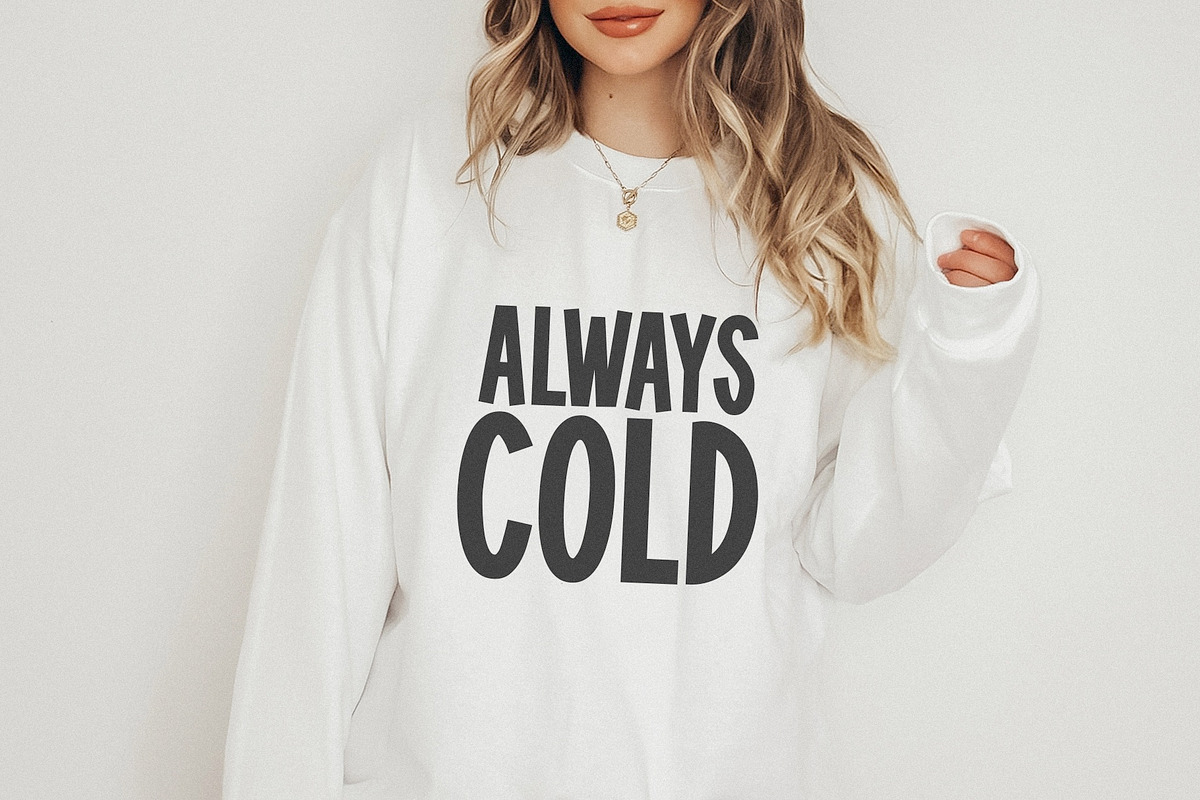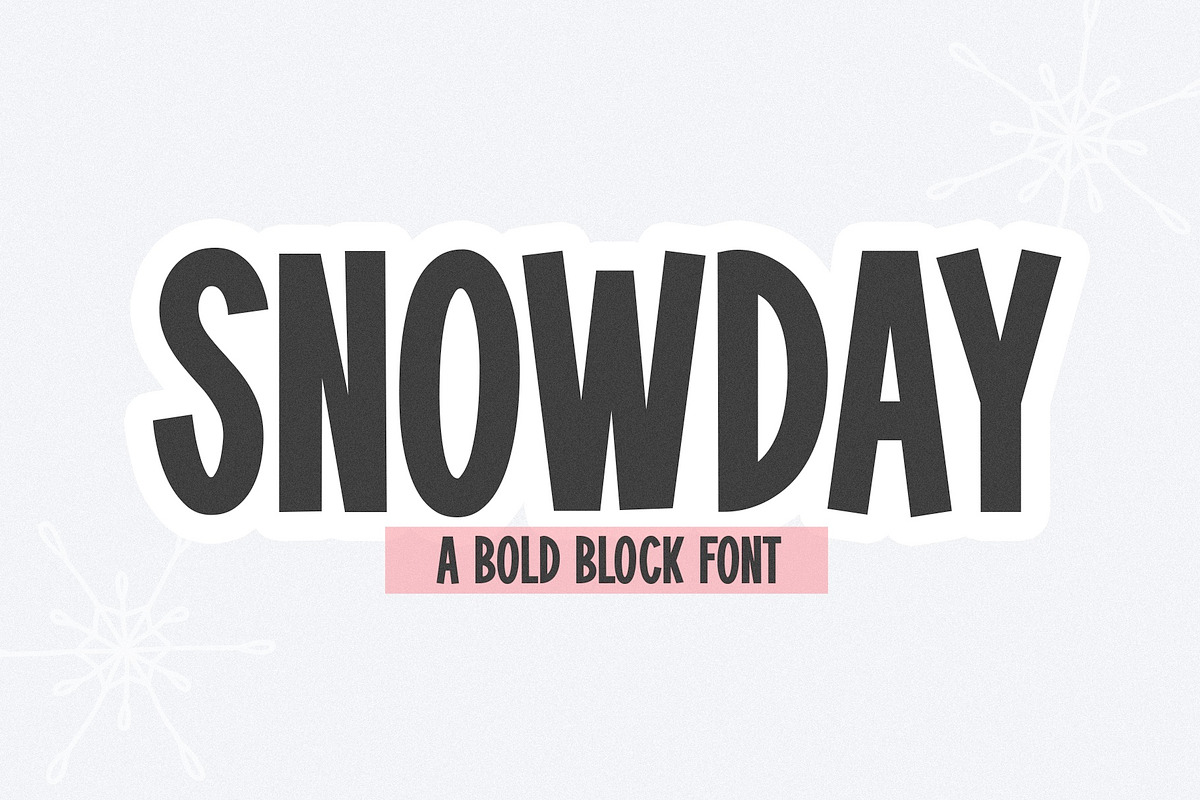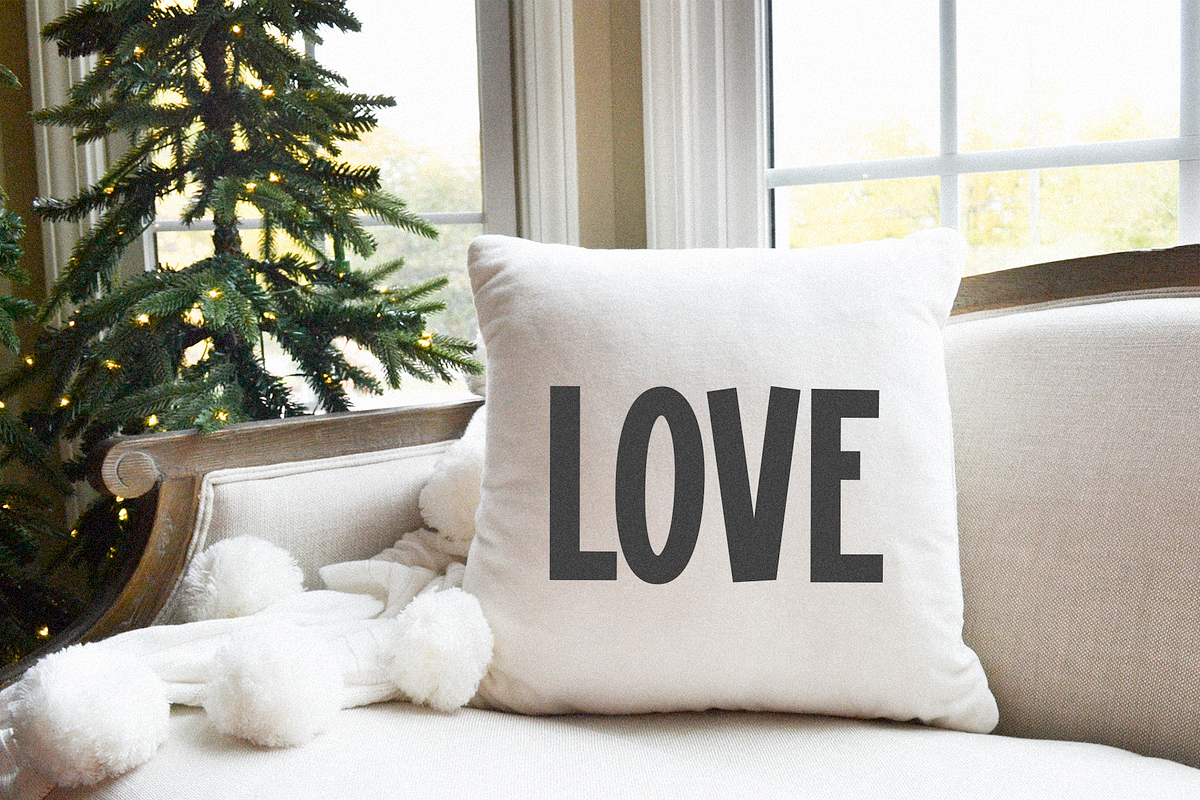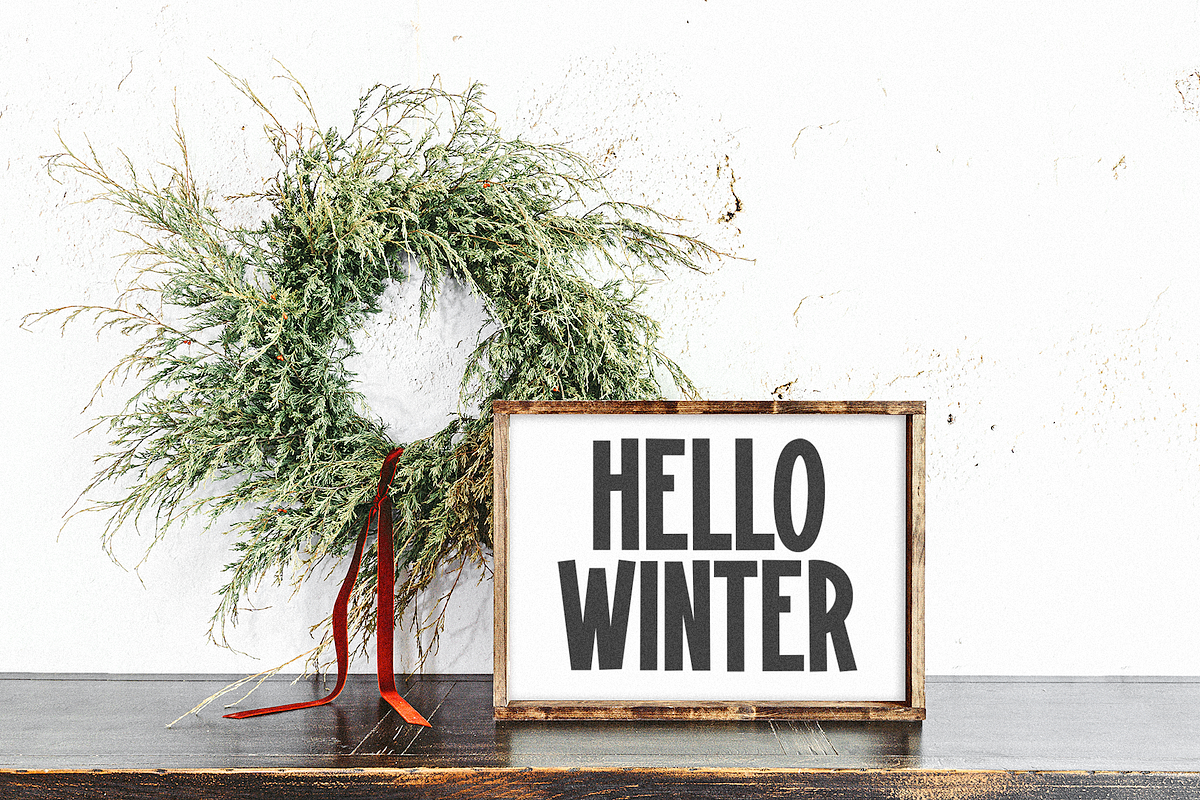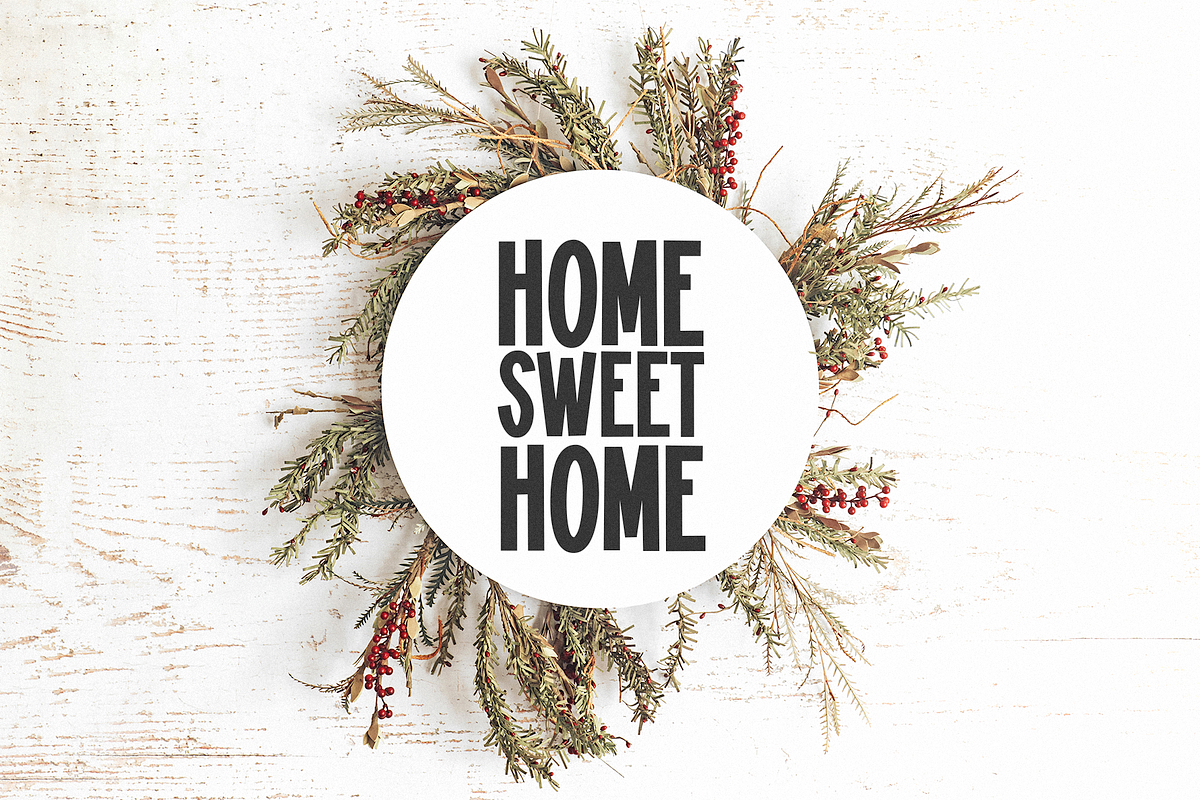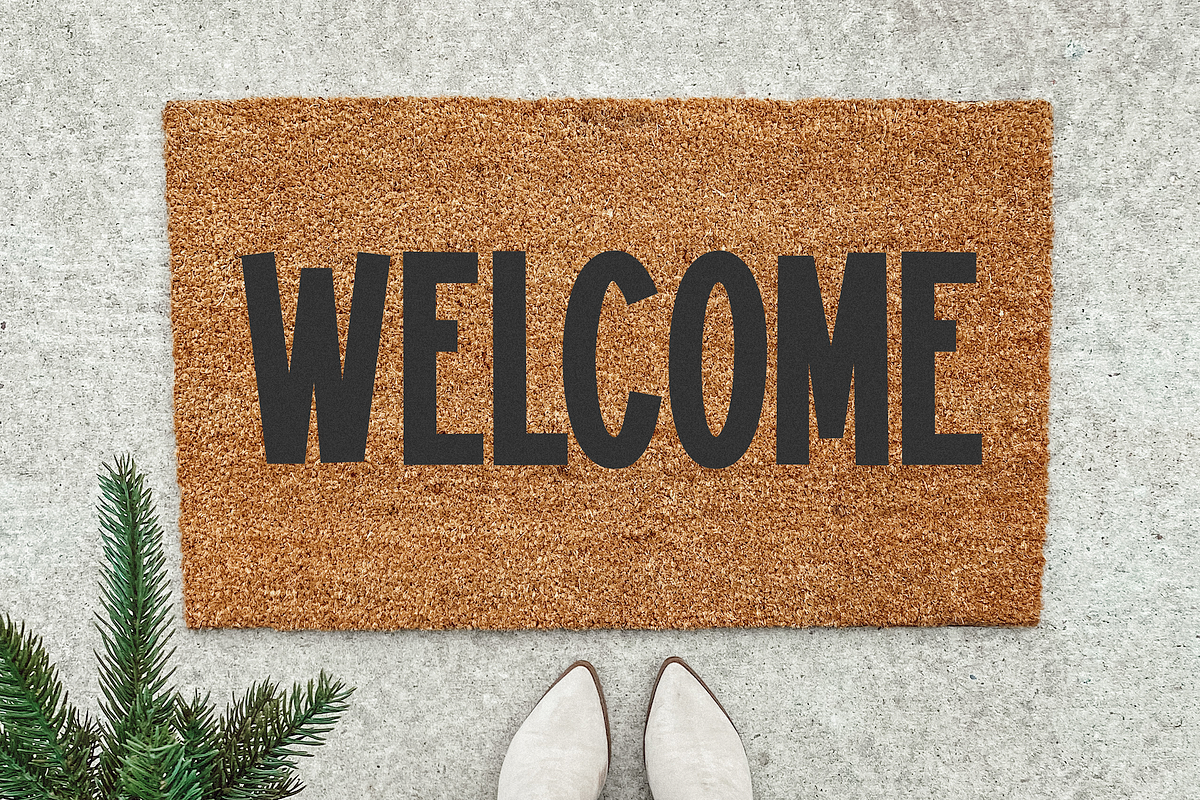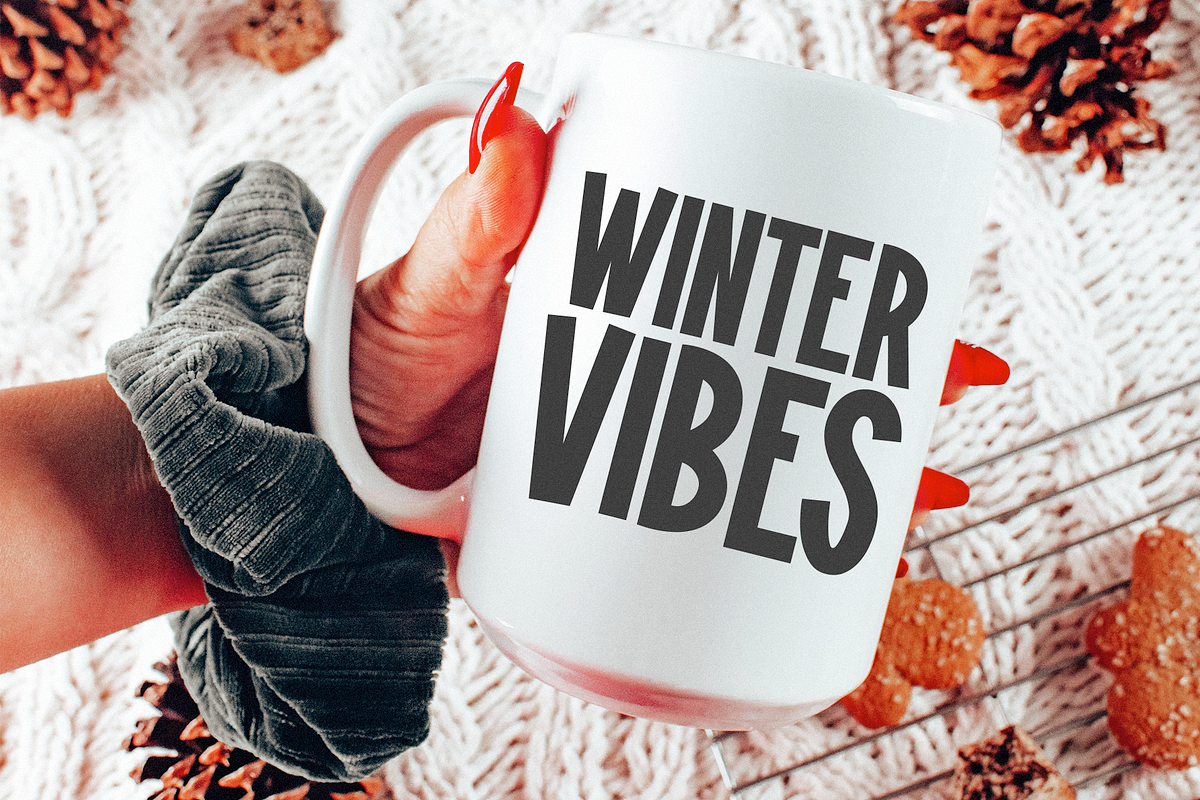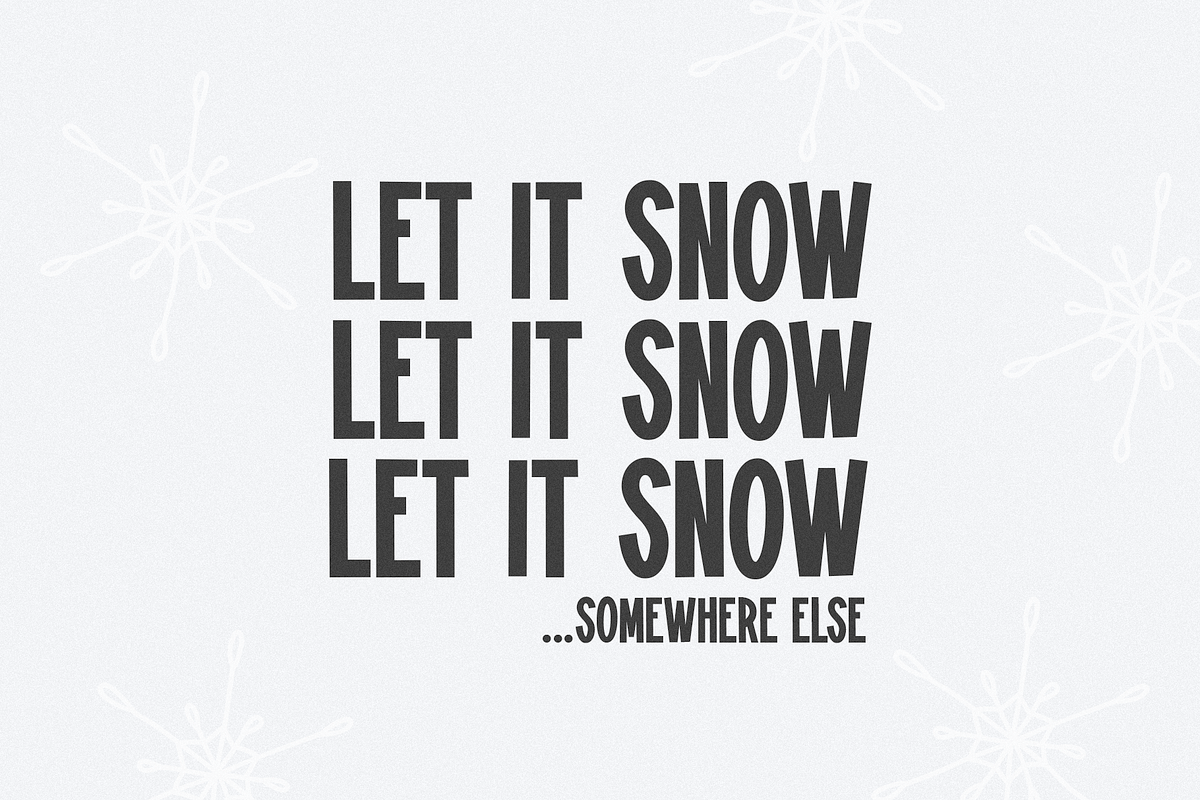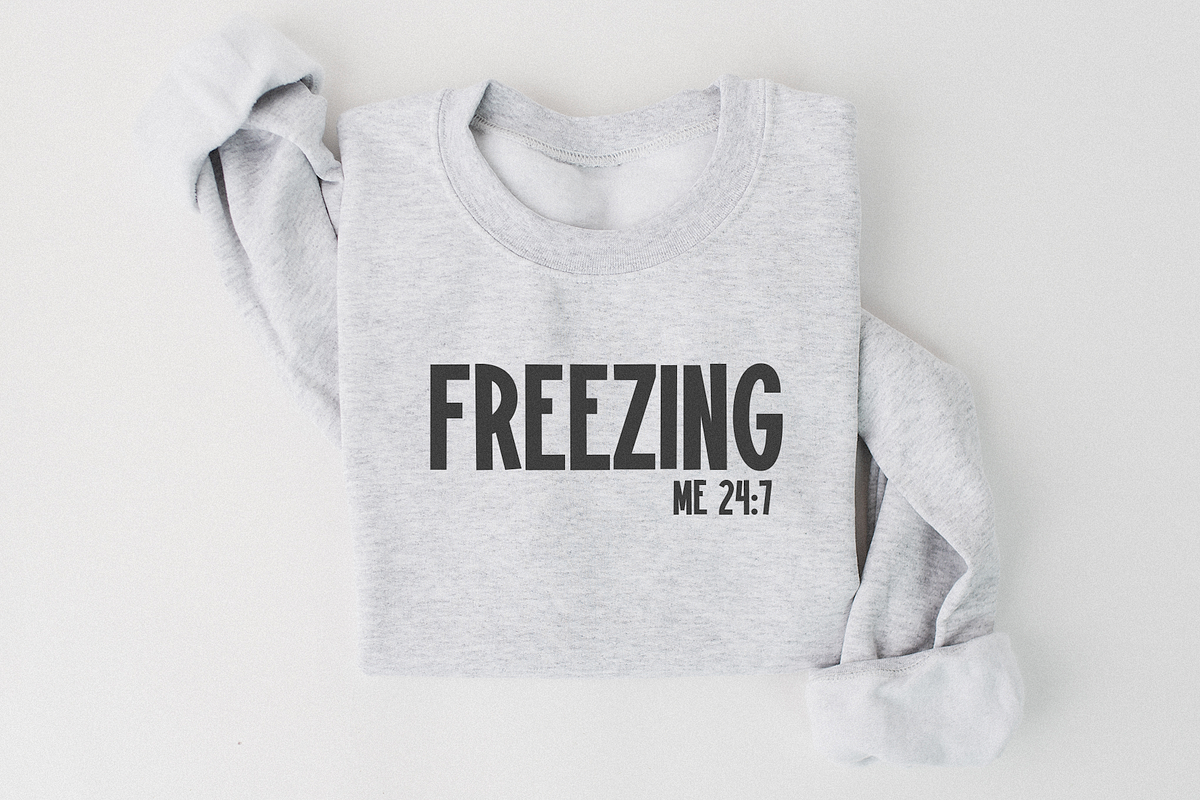
Snowday | Fun Block Font
Snowday is a fun block font!
This font is perfect for your craft projects, svg designs, shirts, mugs, stickers, logos and more!